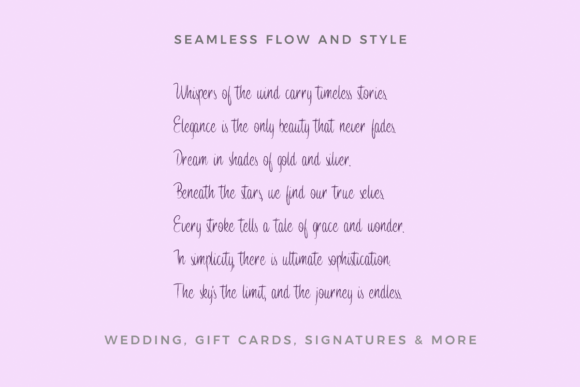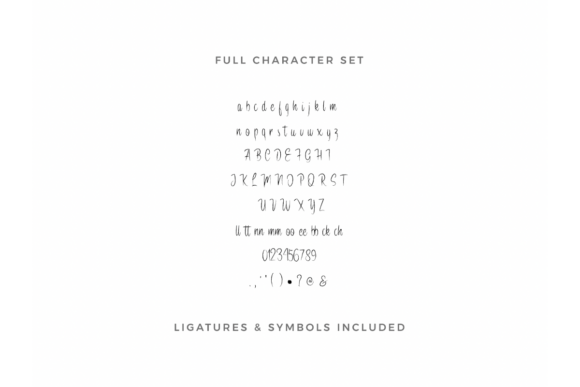
Introducing Eloide Font: A Masterpiece of Handwritten Elegance
In the realm of typography, few fonts manage to capture the essence of uniqueness and charm as eloquently as Eloide. This extraordinary piece of typographic art is not just a font; it’s an expression of creativity, a dance of letters that brings a touch of elegance and sophistication to any design project. Eloide is a script font that stands out with its lovely handwritten style, a true testament to the artist’s meticulous penmanship and innovative flair.
The Inspiration Behind Eloide
The character strokes and curves in Eloide draw inspiration from vintage hand lettering, a style that has been cherished for its warmth and personal touch. The font embodies a naturally elegant yet refreshingly distinctive character set that can capture hearts. Each letter is crafted with precision and care, reflecting a deep understanding of typographic art and a passion for design. The result is a font that not only pays homage to traditional hand lettering but also brings a modern twist to the table.
Eloide: A Versatile Choice for Designers and Crafters
Whether you’re a designer looking to infuse an authentic, personal touch into your projects, or a crafter aiming to add a touch of class to your creations, Eloide serves as an excellent choice. Its versatility is one of its most compelling features, making it suitable for a wide range of applications. From wedding invitations and branding materials to packaging and digital content, Eloide can elevate your work, enabling it to stand out in a crowded marketplace.
The Unique Features of Eloide Font
- Handwritten Elegance: Eloide boasts a beautiful handwritten style that adds a personal and intimate feel to any text.
- Vintage Inspiration: Drawing from vintage hand lettering, Eloide brings a classic charm that is both timeless and trendy.
- Distinctive Character Set: The font features a unique character set that can add a touch of elegance and sophistication to your designs.
- Easy to Read: Despite its elegant and distinctive nature, Eloide remains highly legible, making it perfect for both headings and body text.
How to Use Eloide in Your Projects
- Pair it Wisely: Combine Eloide with complementary fonts to create visual interest and hierarchy in your designs.
- Play with Sizes: Experiment with different font sizes to emphasize certain parts of your text and create a dynamic layout.
- Adjust the Color: Choose colors that reflect the mood and theme of your project. Eloide looks stunning in both bold and subtle color schemes.
Eloide is more than just a font; it’s a statement piece that can transform your designs. With its unique blend of vintage inspiration and modern elegance, Eloide offers a fresh perspective on typography. Whether you’re working on a professional project or a personal craft, Eloide provides the tools to create something truly special. Embrace the charm and elegance of Eloide, and let it guide your creative journey towards producing standout designs.